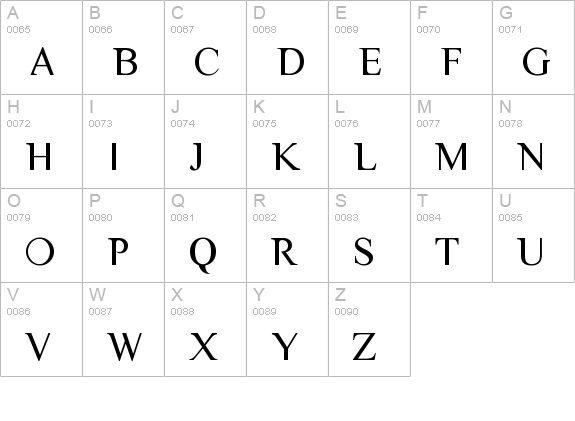
CMTiempo Font Details
CMTiempo font is a stylish and versatile typeface that exudes elegance and sophistication. With its sleek lines and modern aesthetic, this font is perfect for a wide range of design projects, from branding to editorial layouts. The clean and easy-to-read letterforms of CMTiempo make it a great choice for both print and digital applications. One of the best things about CMTiempo font is that it is completely free to download. You can easily access this beautiful font at FontsMarket.com, where you can find a wide selection of high-quality fonts for all your design needs. Whether you're working on a logo design, a website layout, or a print advertisement, CMTiempo font is sure to add a touch of sophistication to your project. Don't miss out on this fantastic opportunity to enhance your designs with this stunning font – download CMTiempo for free today!